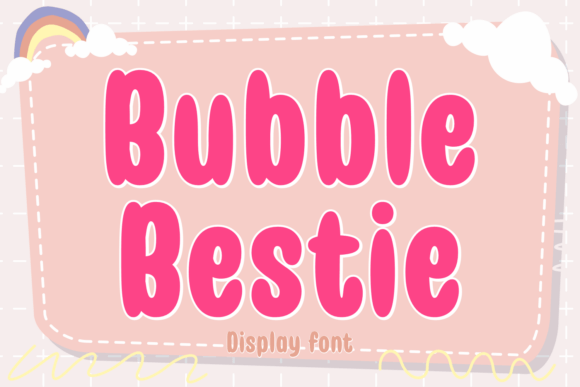
Bubble Bestie Font: Adding a Splash of Whimsy to Your Designs
Are you looking for a font that can add a touch of playfulness and vibrancy to your designs? Look no further than the Bubble Bestie font. This sans serif font is perfect for those who love a dash of the unexpected, with its adorable bubble designs and cool heart detailing. In this article, we’ll explore the features and benefits of the Bubble Bestie font, and how it can be used to add a splash of whimsy and color to any design.
What is Bubble Bestie Font?
Bubble Bestie is a vibrant and playful font that is designed to add a touch of fun and quirkiness to any design. It features adorable bubble designs and cool heart detailing, making it perfect for designs that require a dash of whimsy and personality. The font is sans serif, which means it has a clean and modern look that is easy to read and understand.
Key Features of Bubble Bestie Font
- Vibrant and Playful Design: The Bubble Bestie font features a vibrant and playful design that is perfect for adding a touch of fun and quirkiness to any design.
- Adorable Bubble Designs: The font features adorable bubble designs that add a touch of whimsy and personality to any design.
- Cool Heart Detailing: The font also features cool heart detailing, which adds a touch of romance and sweetness to any design.
- Sans Serif Design: The font has a clean and modern sans serif design that is easy to read and understand.
Uses of Bubble Bestie Font
The Bubble Bestie font is perfect for a variety of design projects, including:
- Birthday Invitations: The font is perfect for birthday invitations, as it adds a touch of fun and playfulness to the design.
- Wedding Announcements: The font can also be used for wedding announcements, as it adds a touch of romance and whimsy to the design.
- Social Media Graphics: The font is perfect for social media graphics, as it adds a touch of personality and fun to any design.
- Branding and Packaging: The font can also be used for branding and packaging, as it adds a touch of whimsy and playfulness to any design.
Benefits of Using Bubble Bestie Font
- Adds a Touch of Whimsy and Personality: The font adds a touch of whimsy and personality to any design, making it perfect for designs that require a dash of fun and quirkiness.
- Easy to Read and Understand: The font has a clean and modern sans serif design that is easy to read and understand.
- Perfect for a Variety of Design Projects: The font is perfect for a variety of design projects, including birthday invitations, wedding announcements, social media graphics, and branding and packaging.
- Unique and Eye-Catching: The font is unique and eye-catching, making it perfect for designs that require a touch of personality and fun.
The Bubble Bestie font is a vibrant and playful font that is perfect for adding a touch of fun and quirkiness to any design. With its adorable bubble designs and cool heart detailing, it’s perfect for designs that require a dash of whimsy and personality. Whether you’re creating birthday invitations, wedding announcements, social media graphics, or branding and packaging, the Bubble Bestie font is a great choice.
- What is the Bubble Bestie font?: The Bubble Bestie font is a vibrant and playful sans serif font that features adorable bubble designs and cool heart detailing.
- What is the Bubble Bestie font used for?: The font is perfect for a variety of design projects, including birthday invitations, wedding announcements, social media graphics, and branding and packaging.
- Is the Bubble Bestie font easy to read?: Yes, the font has a clean and modern sans serif design that is easy to read and understand.